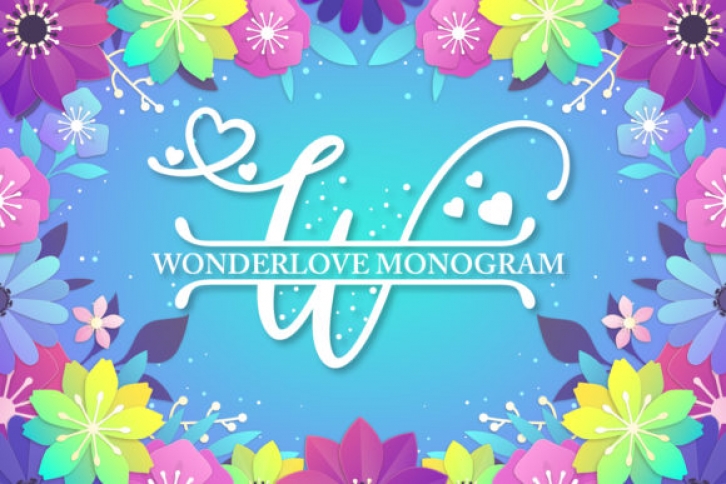
Wonderlove Monogram simplifies elegance into one truly outstanding display font. This font is the perfect fit for all of your logos, branding, social media, and crafty DIY projects.